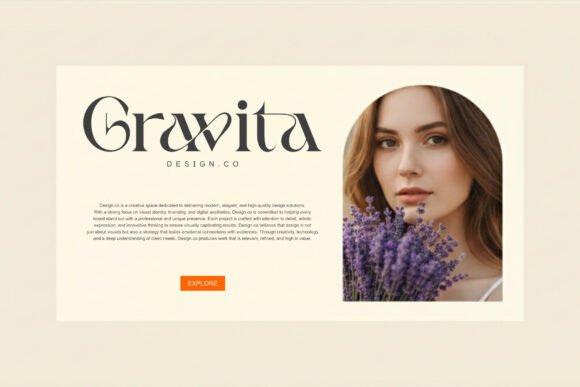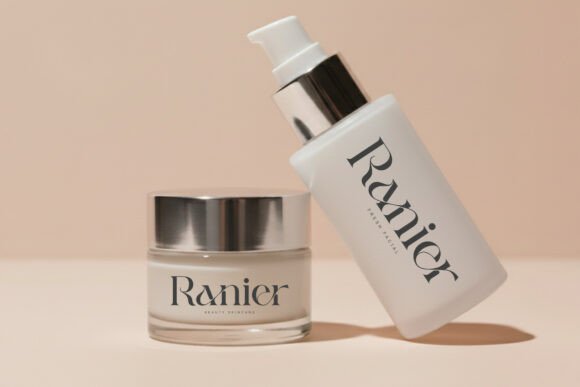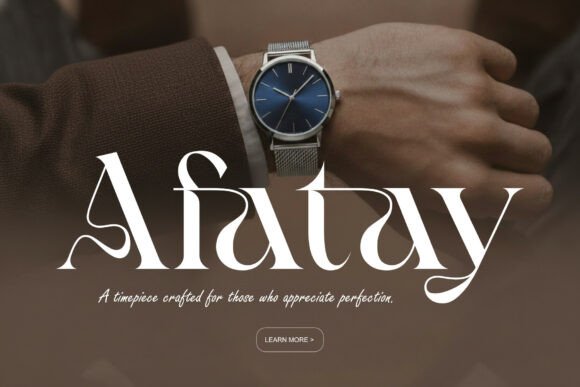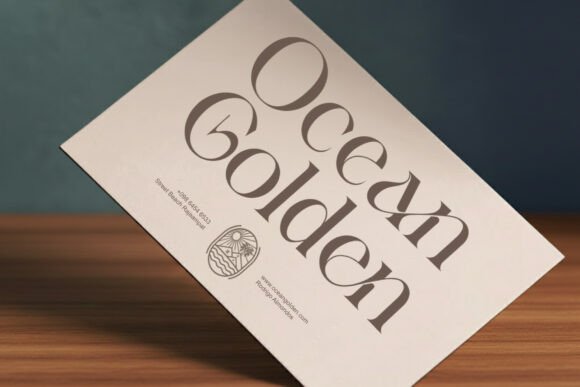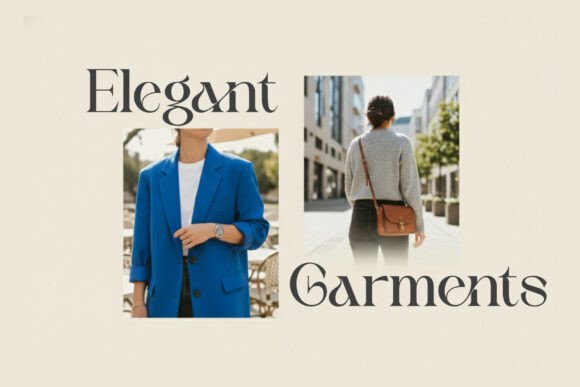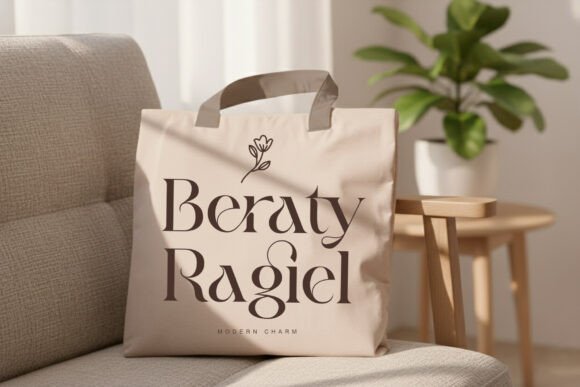
Introduction to Qaveria Font Font
Fonts play a crucial role in design, and the Qaveria Font font is a typeface that brings both character and versatility to any project. Whether you’re working on a branding project, a website, or a print design, the Qaveria Font font offers a unique style that can elevate your work.
Qaveria is a stylish and elegant serif typeface crafted with a perfect balance of luxury and artistic expression.
Its distinctive curves, refined strokes, and graceful letterforms create a sophisticated visual identity that stands out in any high-end design project Each character is thoughtfully designed to deliver a timeless aestheticβmodern, expressive, and delicately ornamental.
The Qaveria Font font is more than just a typeface β it’s a design tool that helps you communicate your message with style and clarity. Its unique character set and versatile design make it suitable for a wide range of applications, from elegant invitations to bold headlines.
With its carefully crafted letterforms and balanced proportions, the Qaveria Font font ensures readability and visual appeal across all mediums.
What makes Qaveria Font font special?
The Qaveria Font font stands out with its unique design, exceptional readability, and versatility across various design applications.